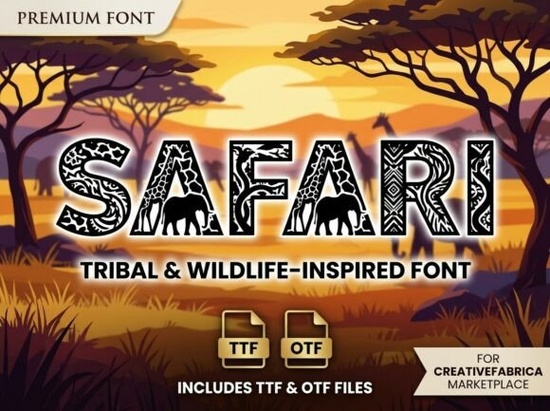
When you start a new design project, finding the right typeface can be tricky. Sometimes standard fonts look too plain, and custom ones take too long to build. That is exactly why many creatives turn to specialized assets like Safari Font. It is built to stand out immediately, offering thick shapes filled with detailed imagery rather than solid ink. This makes it ideal when you need headlines that tell a story without taking up extra space.
The character walls are hollowed out to show silhouettes inside. You will see giraffes climbing stems or elephants walking along the baseline of your text. These aren't just letters; they act like picture frames containing scenes from nature. For those who sell crafts or run a blog, having graphics already embedded in the text saves hours of editing in software.
How does this typeface compare to other display options?
Is this suitable for my specific industry?
Yes, primarily because the visual language is versatile across several sectors. Adventure travel agencies love these heavy characters for tour brochures. The Aztec patterns and geometric linework add an authentic cultural feel that generic sans-serifs lack. If you work in education, teachers appreciate the engagement factor when kids see animals inside letters on storybooks.
Why do cricut users choose this file?
Crafters rely heavily on cutting files for machines like Silhouette Cameo or Cricut Explore. When purchasing these digital downloads, layer integrity matters. This particular asset comes prepared with cut-ready paths. You do not need to trace over black shapes manually in Illustrator. The layers are usually organized so the animal silhouettes sit inside the letter outlines cleanly.
This separation allows you to change the fill color of the text separately from the internal images. Want a red shirt with green giraffes? You can swap the fills independently if your machine supports multi-color cuts. The vector quality holds up well when resized for large banners or scaled down for stickers.
Choosing the right asset saves time and money. With the intricate details included, you skip the manual tracing stage entirely. Whether for a kid's birthday invite or a shop sign, having pre-made complex typography streamlines your workflow significantly.